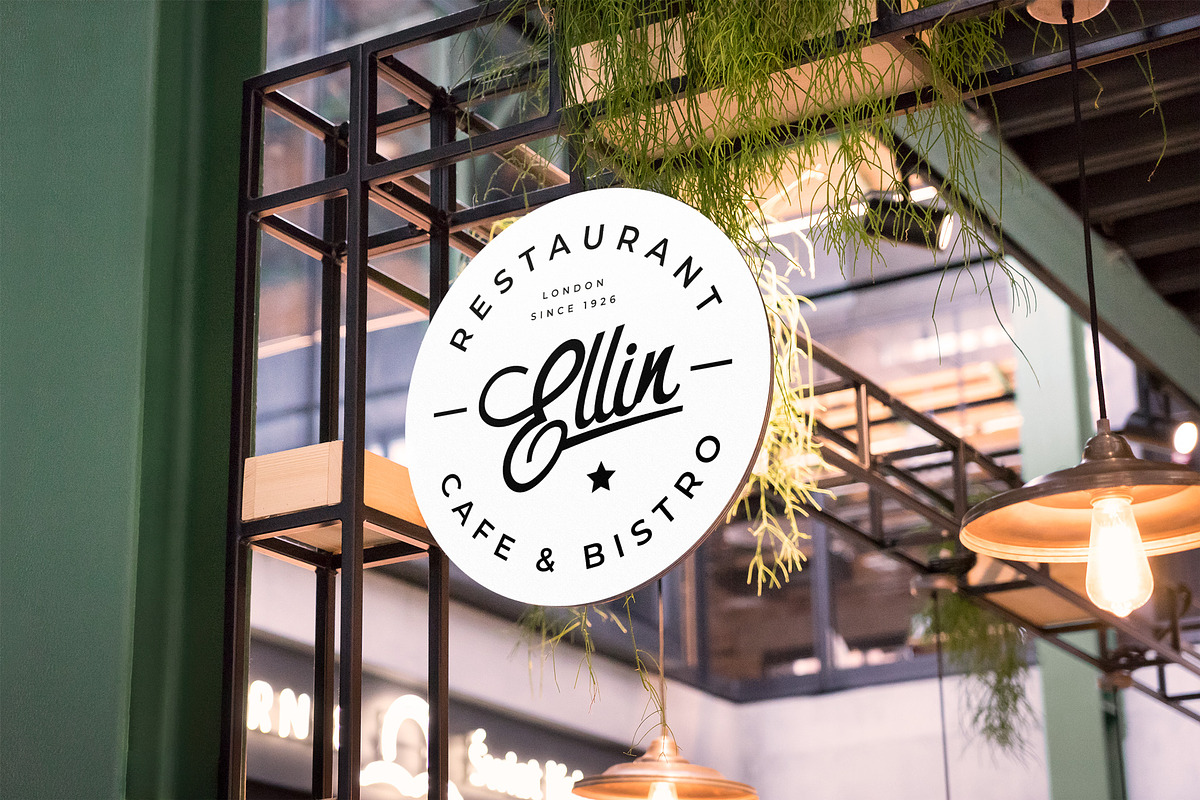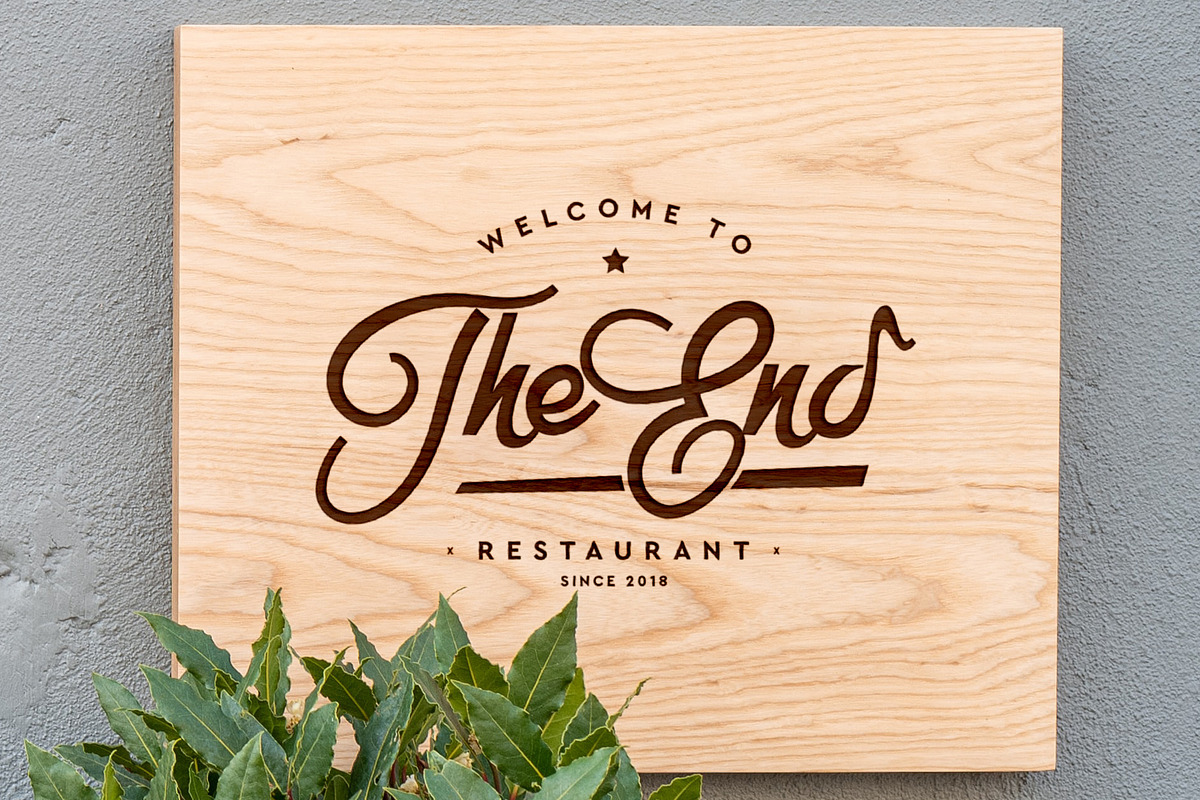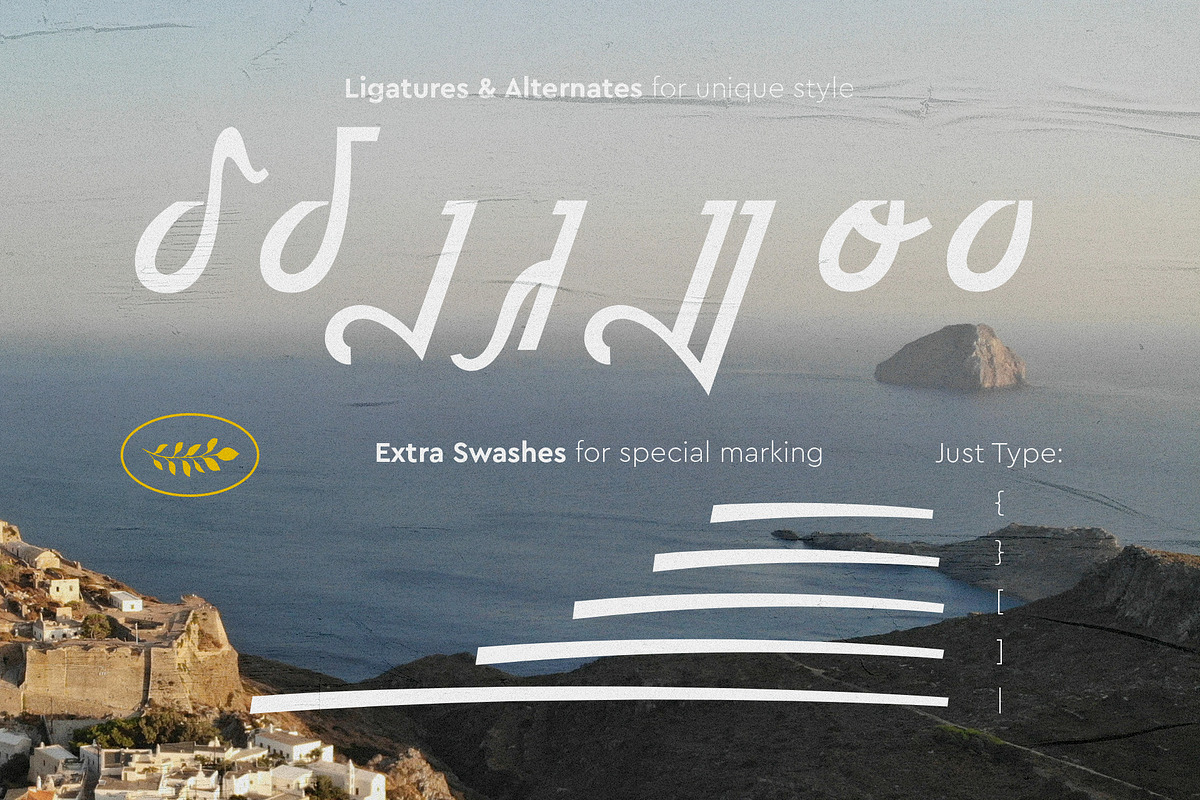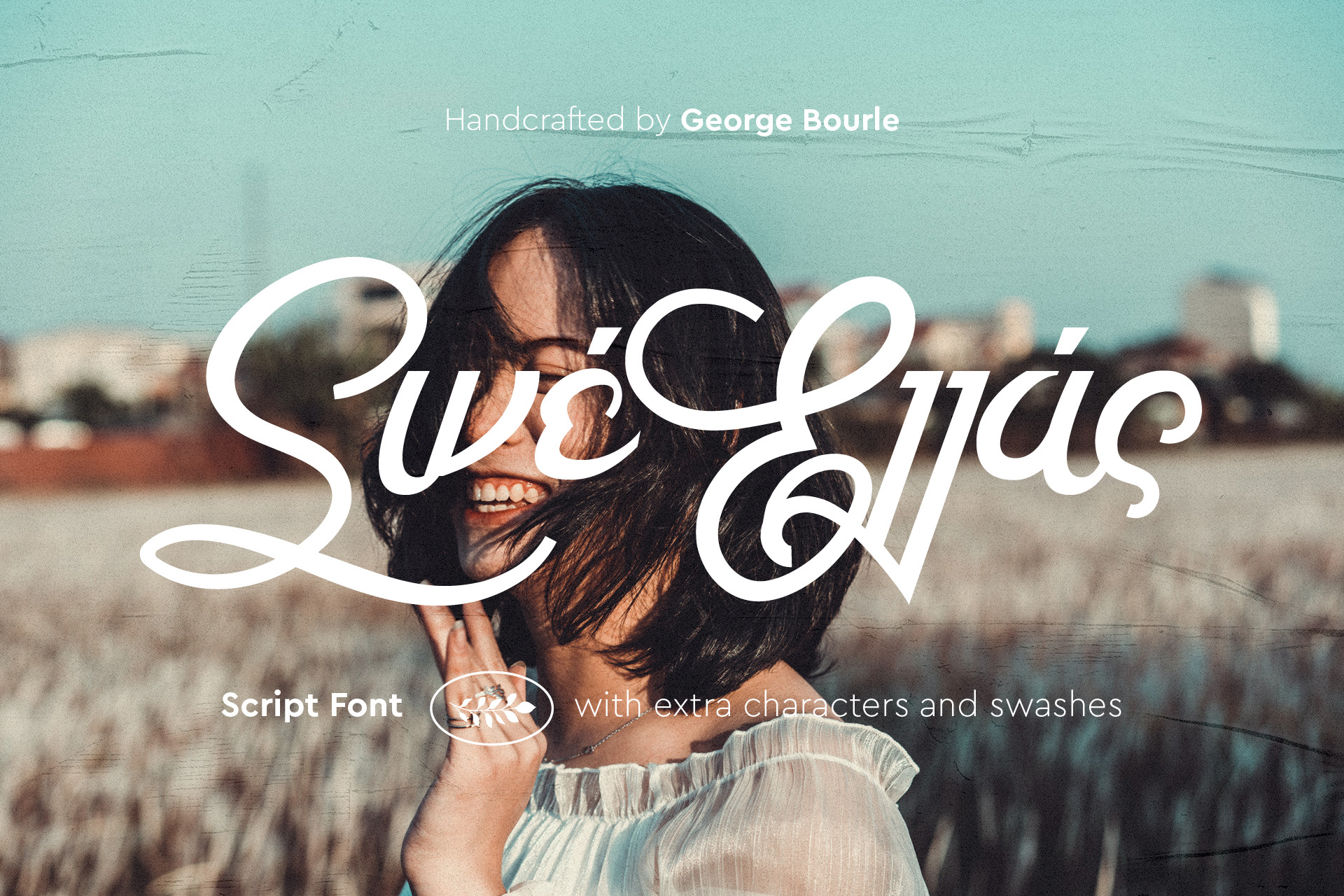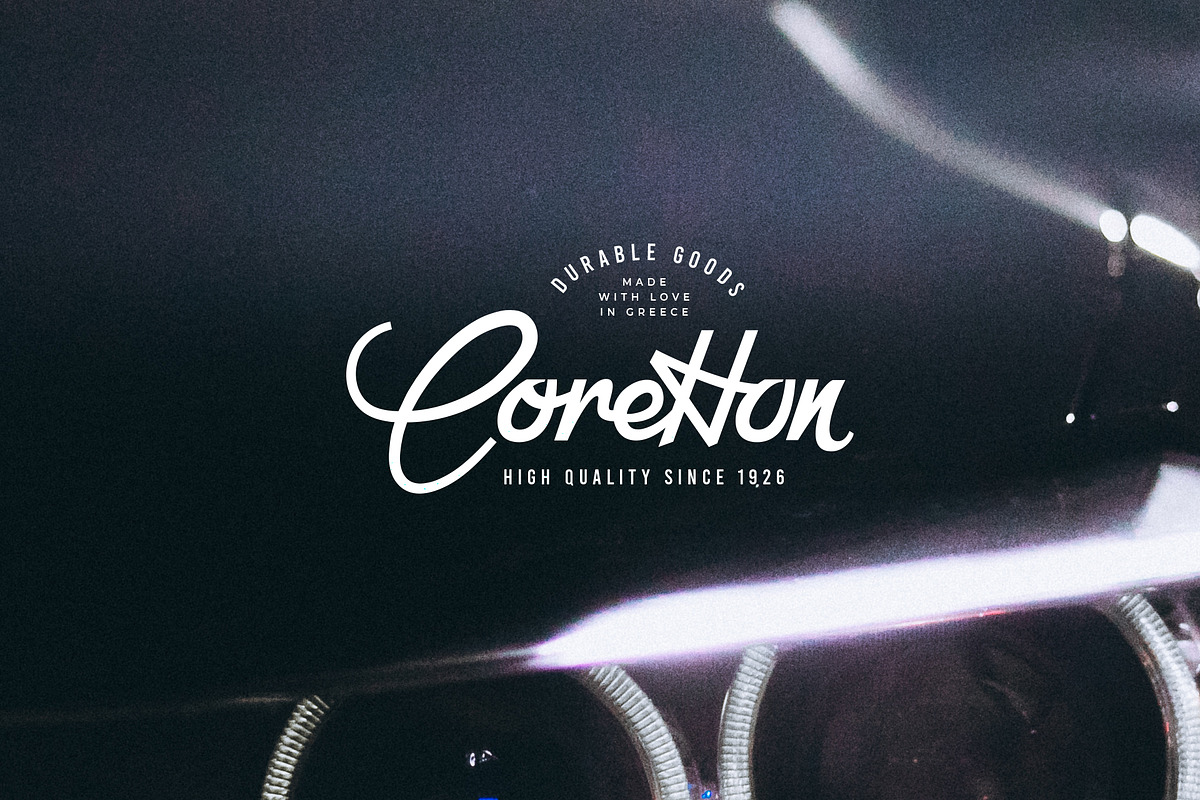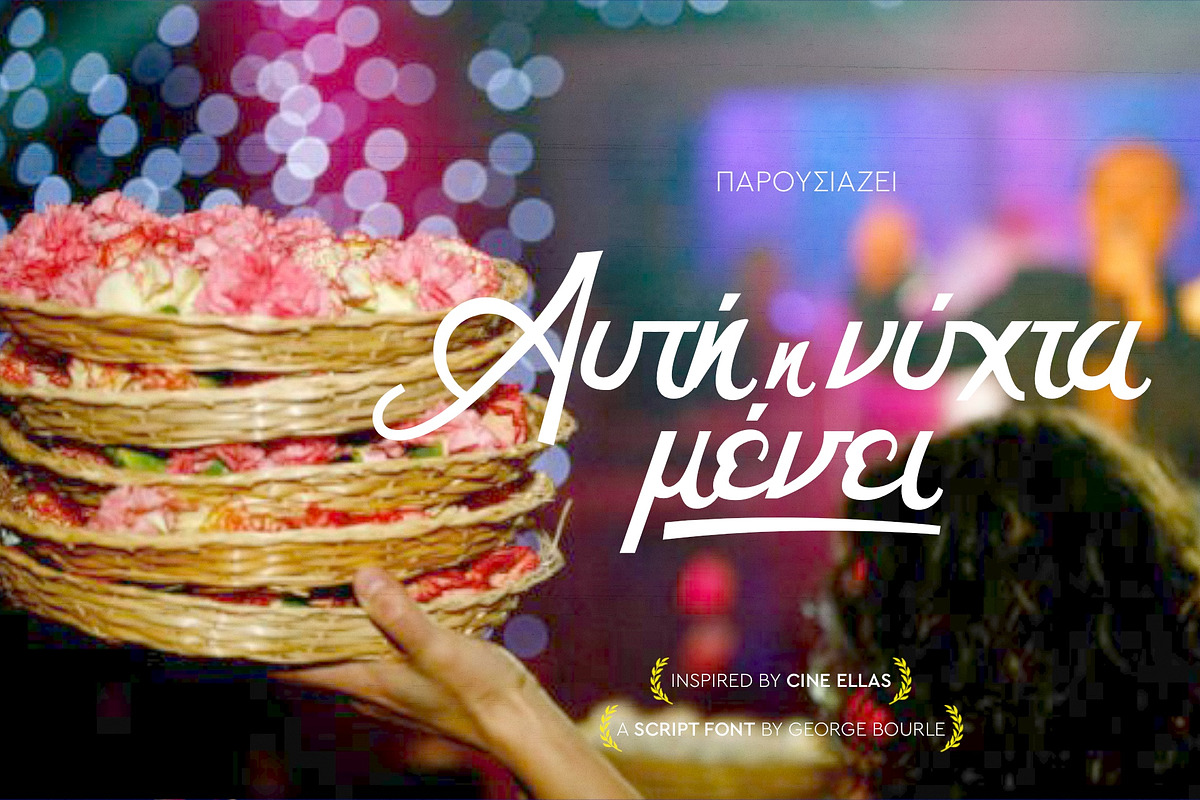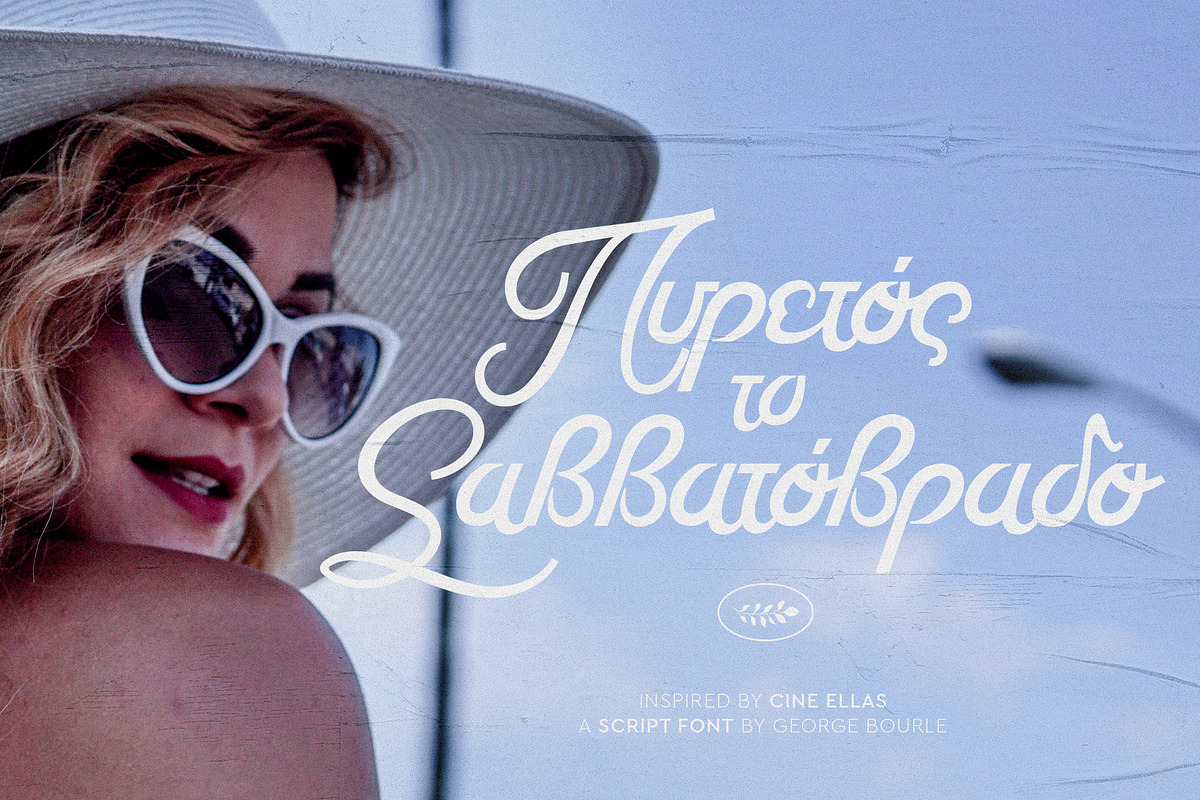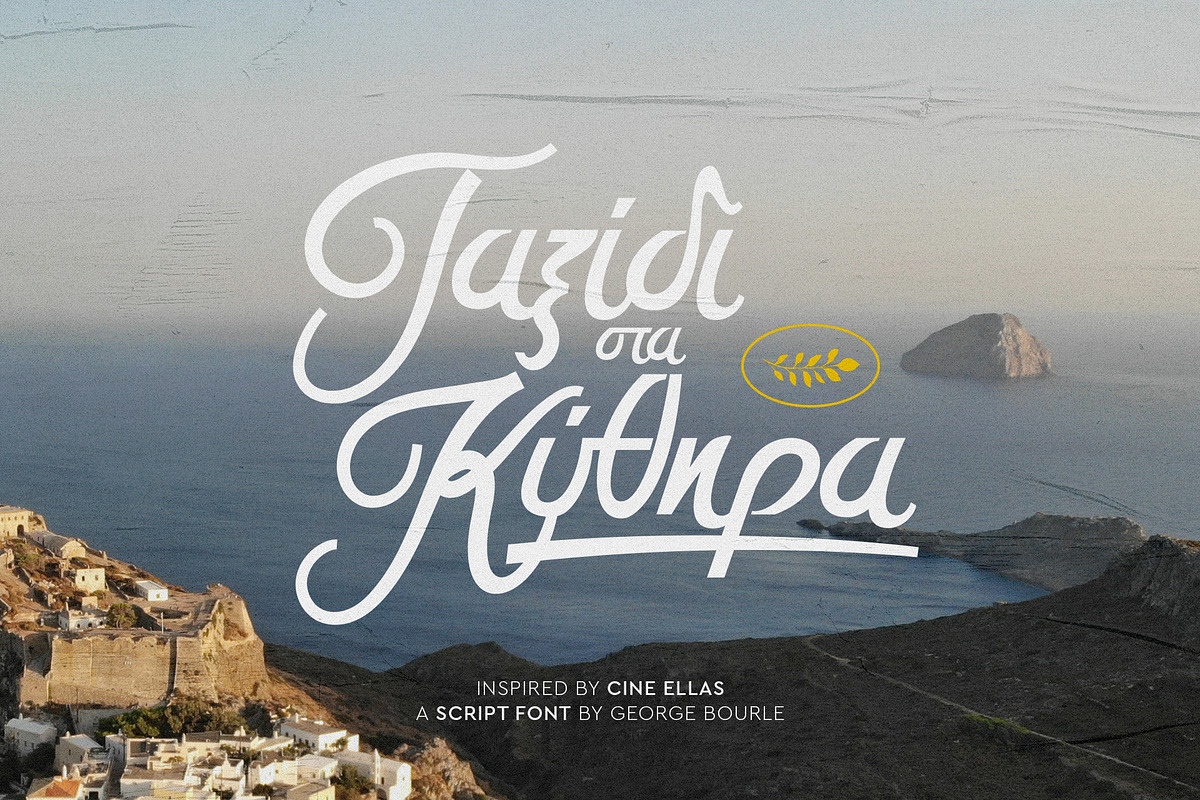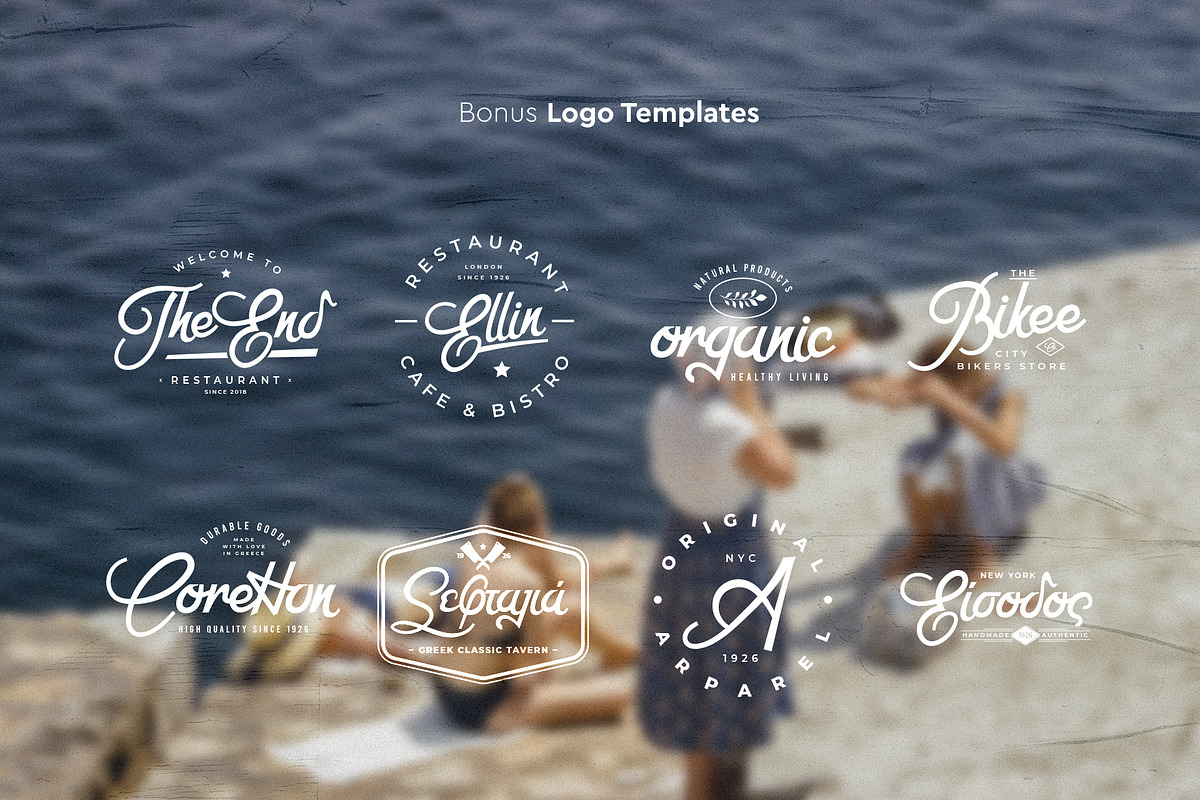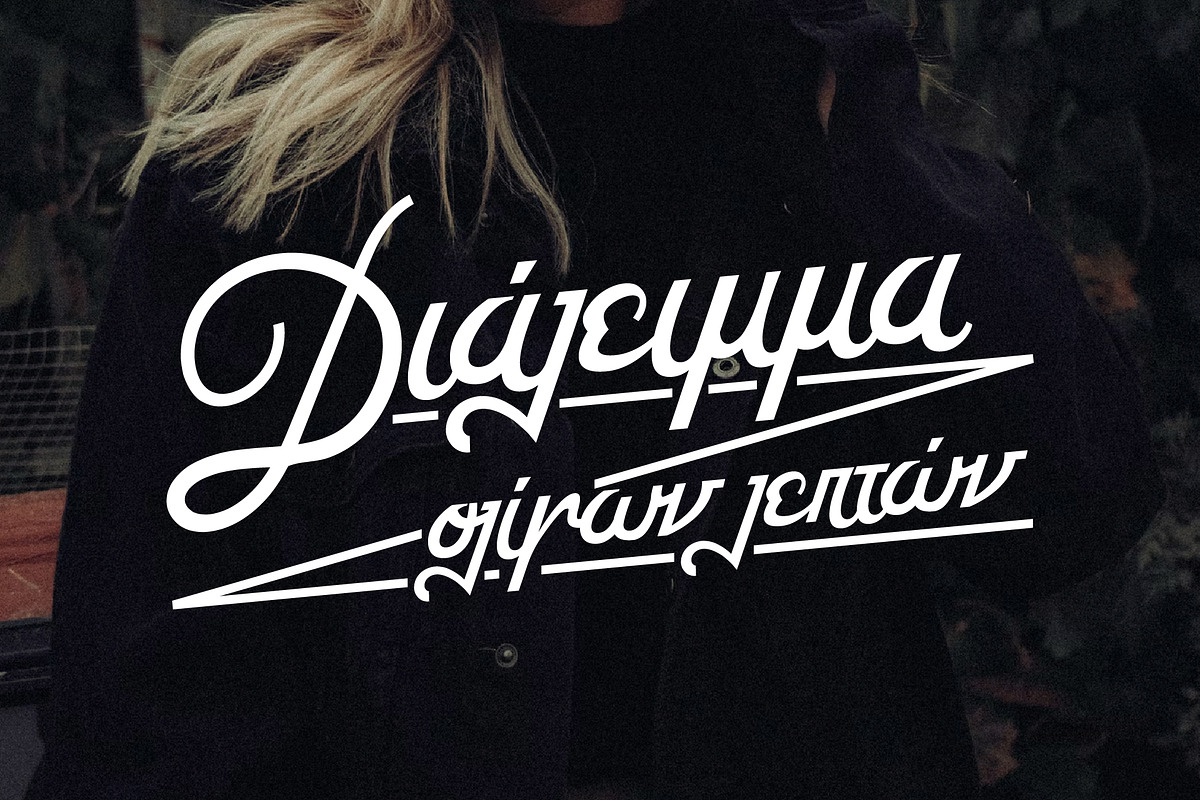
Cine Ellas font + Extras
I’m so glad it’s finally here. I’ve been working on Cine Ellas font for a long time, and now I am so excited to finally share it with you.
If you are looking for a vintage font to make your titles or logos to stand out, I have the perfect font for you!
Inspired by old signs, Cine Ellas font is the perfect way to add a little flair to your designs. It comes with alternates and ligatures so you can customise your text even more. Plus, it has extra swashes for underlining your text in style. It even includes dedicated Greek alphabet characters!